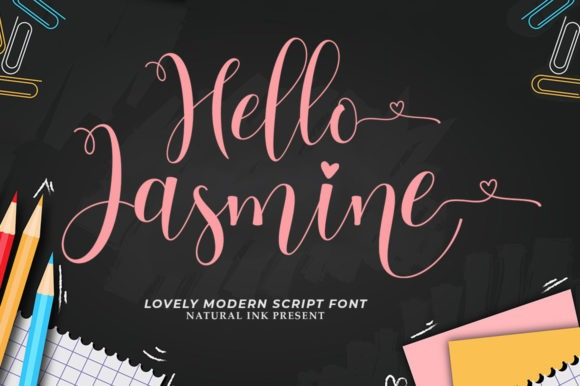
Hello Jasmine Font
Hello Jasmine Font feels equally charming and elegant. Hello Jasmine Font looks stunning on wedding invitations, thank you cards, quotes, greeting cards, logos, business cards and every other design which needs a handwritten touch. This font is PUA encoded which means you can access all of the glyphs and swashes with ease! It features a varying baseline, smooth lines, gorgeous glyphs and stunning alternates.